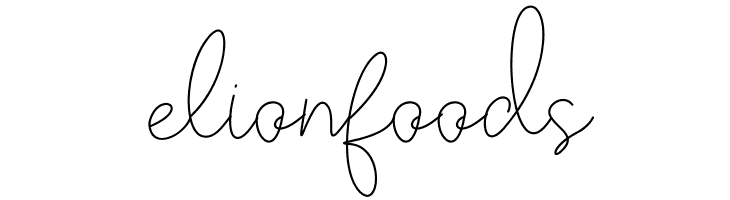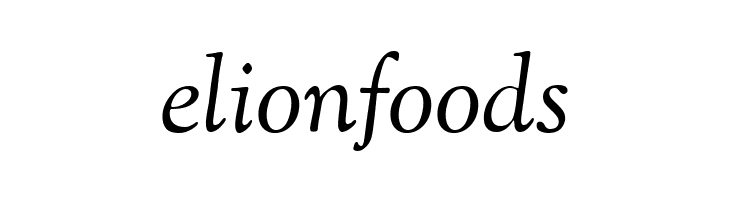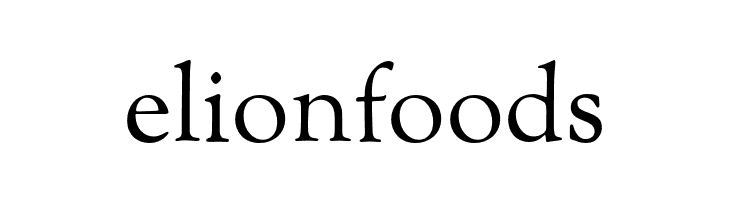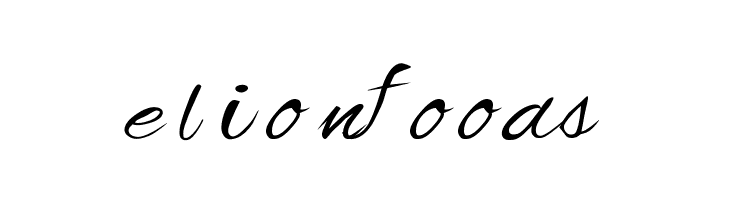
A fluid and elegant handwritten font with a cursive style.
A bold, textured font with a vintage, hand-crafted appearance.
A modern, geometric font with rounded edges and a clean, minimalistic style.
A classic serif font with elegant lines and medium contrast, perfect for traditional designs.
A classic, elegant italic serif font with graceful slants and delicate serifs.
An elegant serif italic font with smooth curves and classic style.
A classic serif font with elegant strokes and a vintage aesthetic.
An elegant italic serif font with a classic and sophisticated style.
A graceful, handwritten script font with a signature-like elegance.